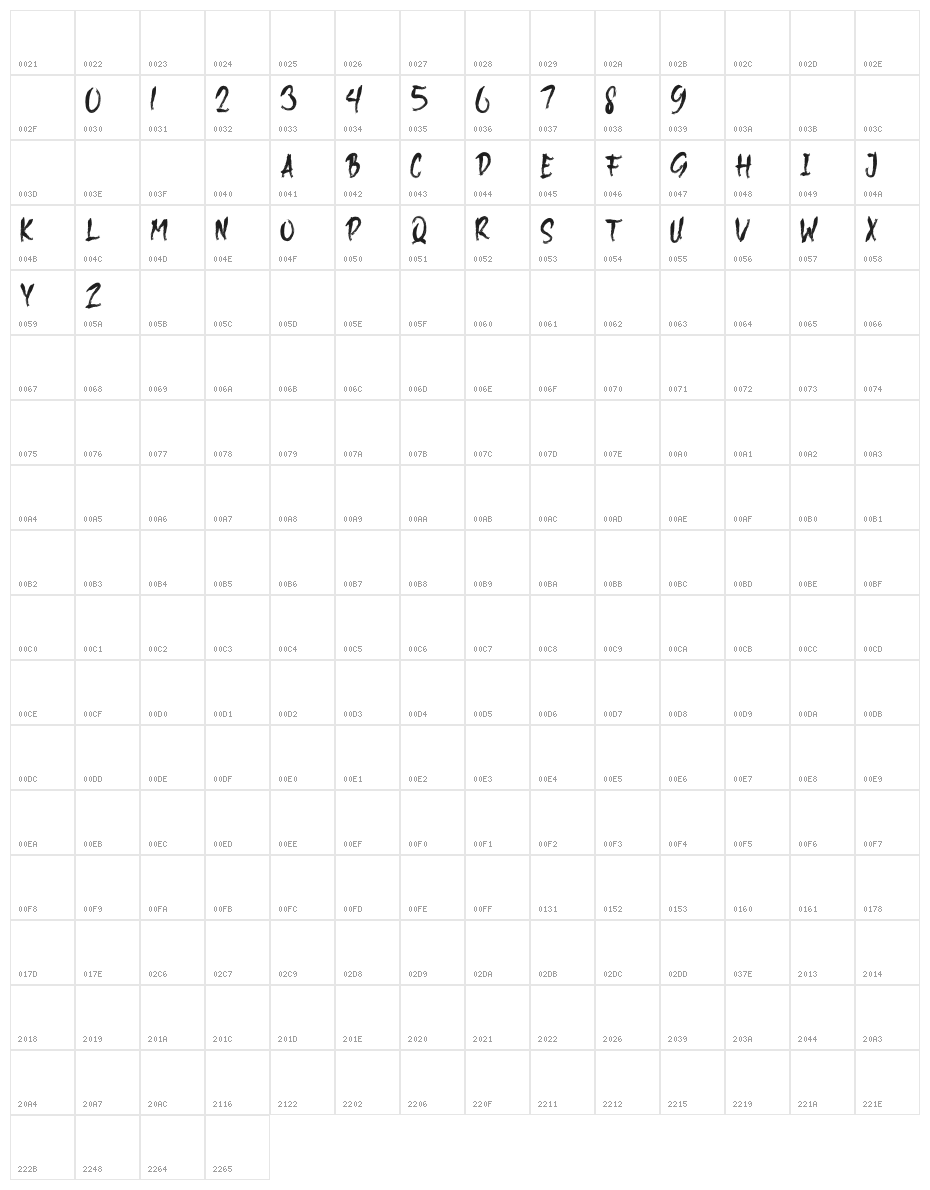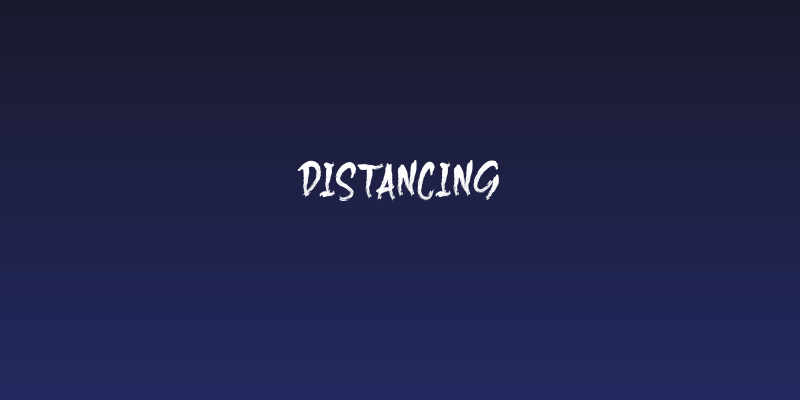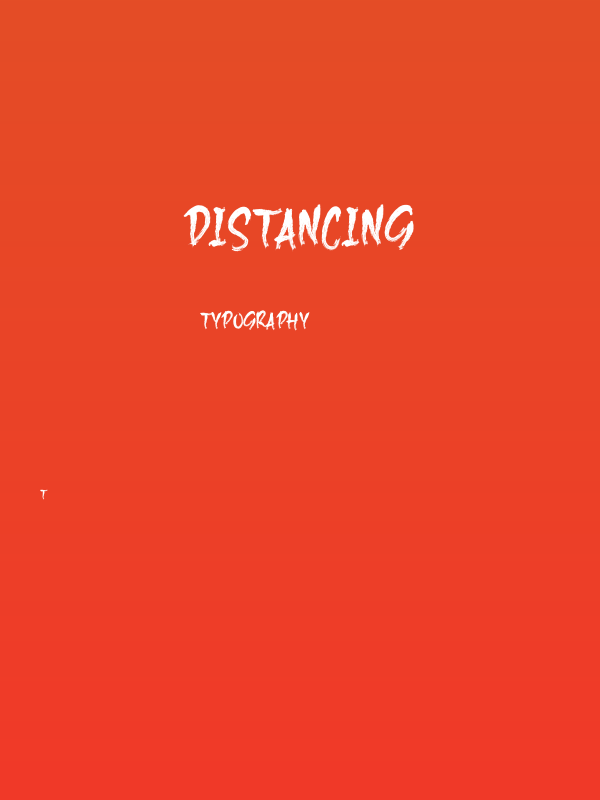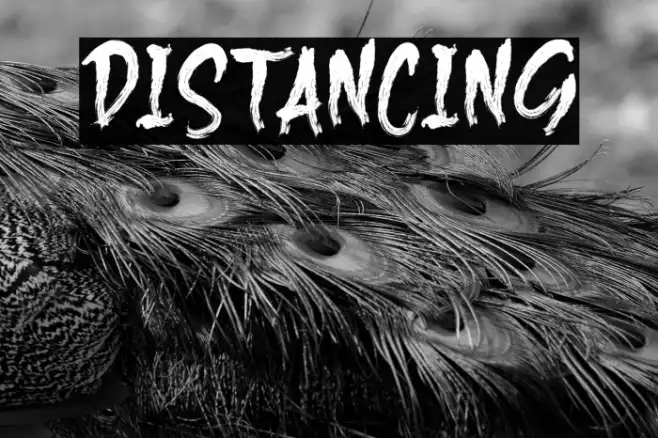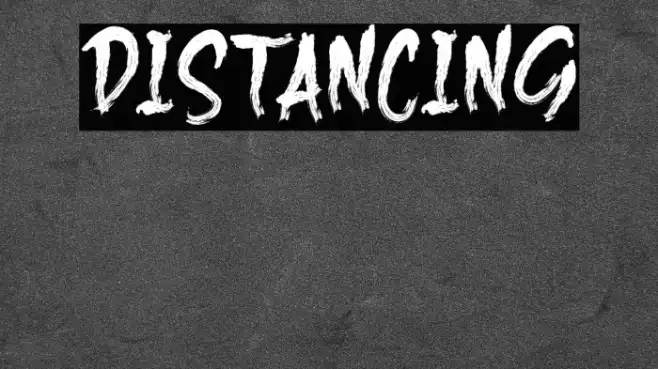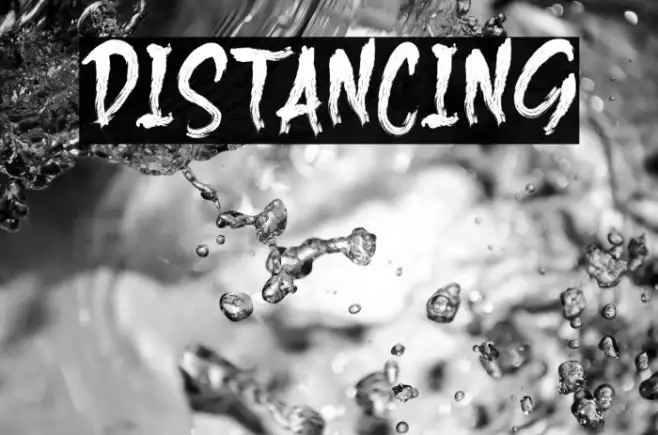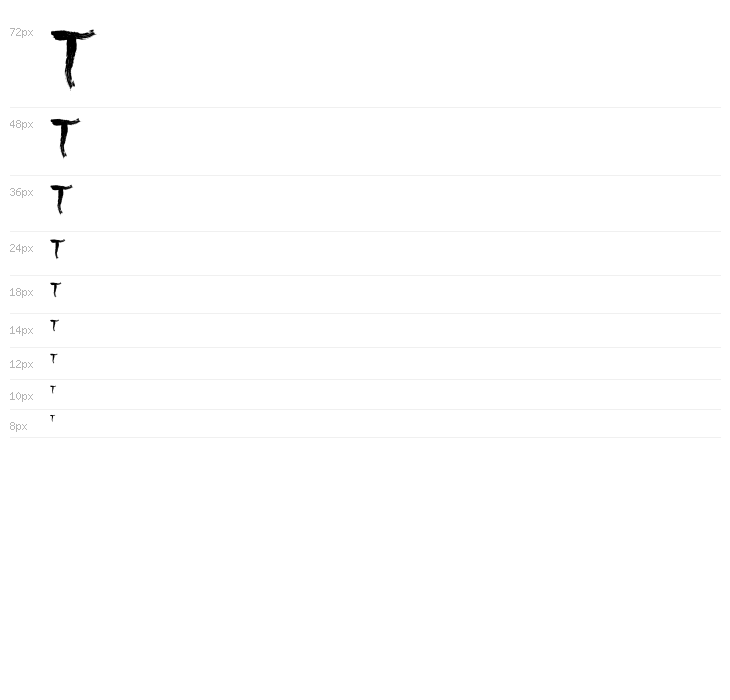
DISTANCING Font
DISTANCING Description
This font features a bold and expressive brushstroke style, giving it a dynamic and artistic appearance. The characters are crafted with varying thicknesses, creating a sense of movement and energy. Each letter has a unique flair, with some strokes extending beyond the baseline or cap height, adding to its handcrafted feel. The numbers follow the same brushstroke aesthetic, maintaining consistency across the character set. This font is ideal for projects that require a personal touch or a creative, informal vibe.
| Overall Style | Artistic, Dynamic |
| Proposed Projects | Ideal for posters, artistic branding, social media graphics, and creative invitations. |